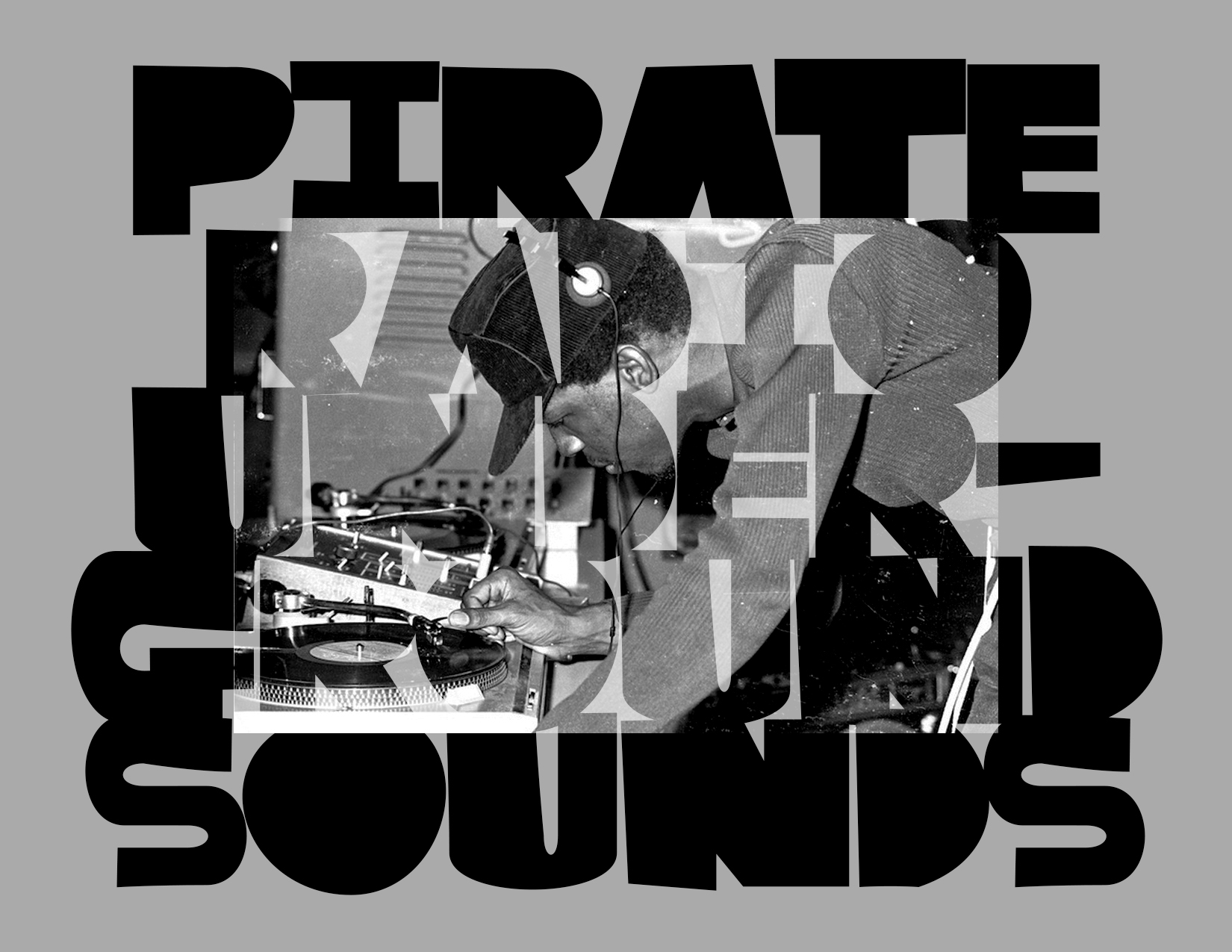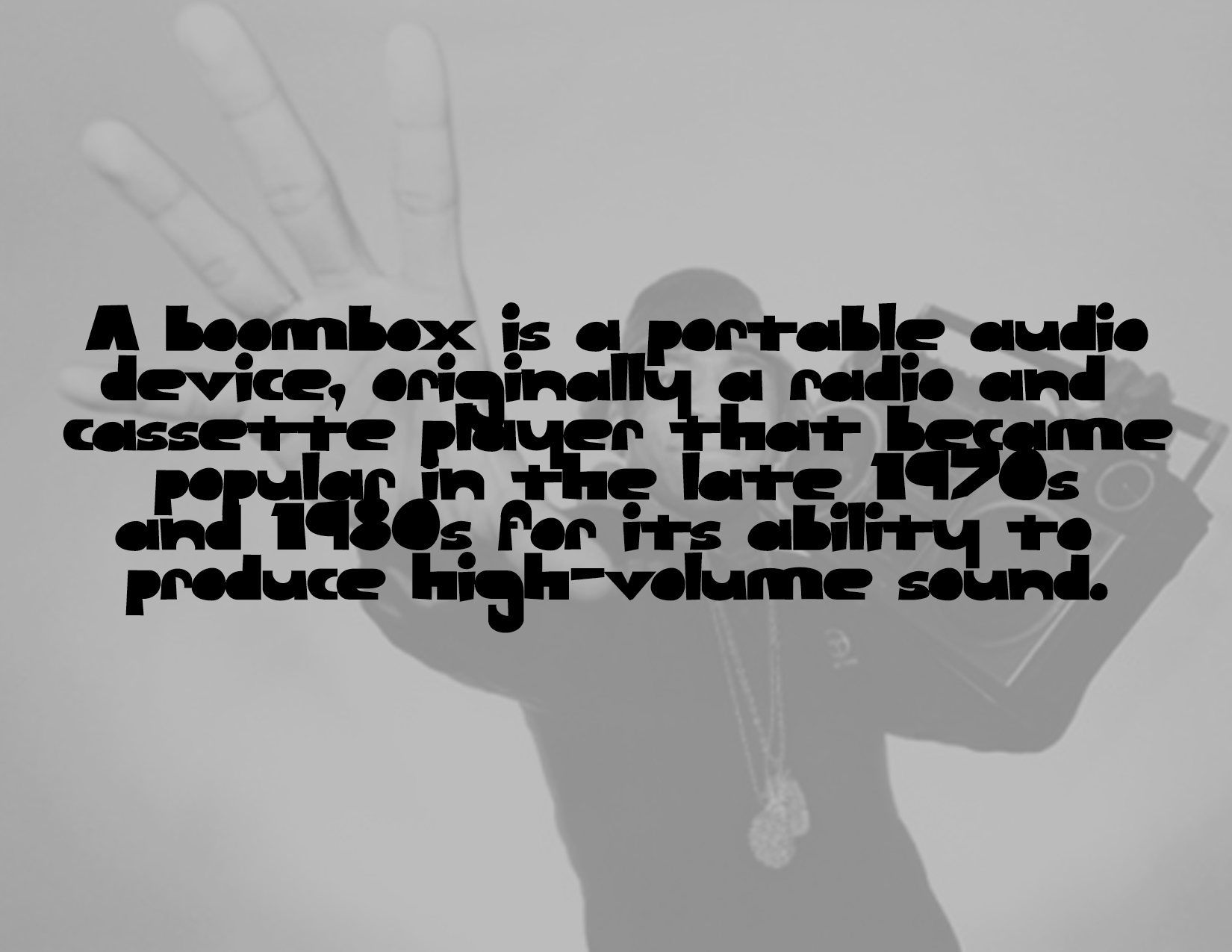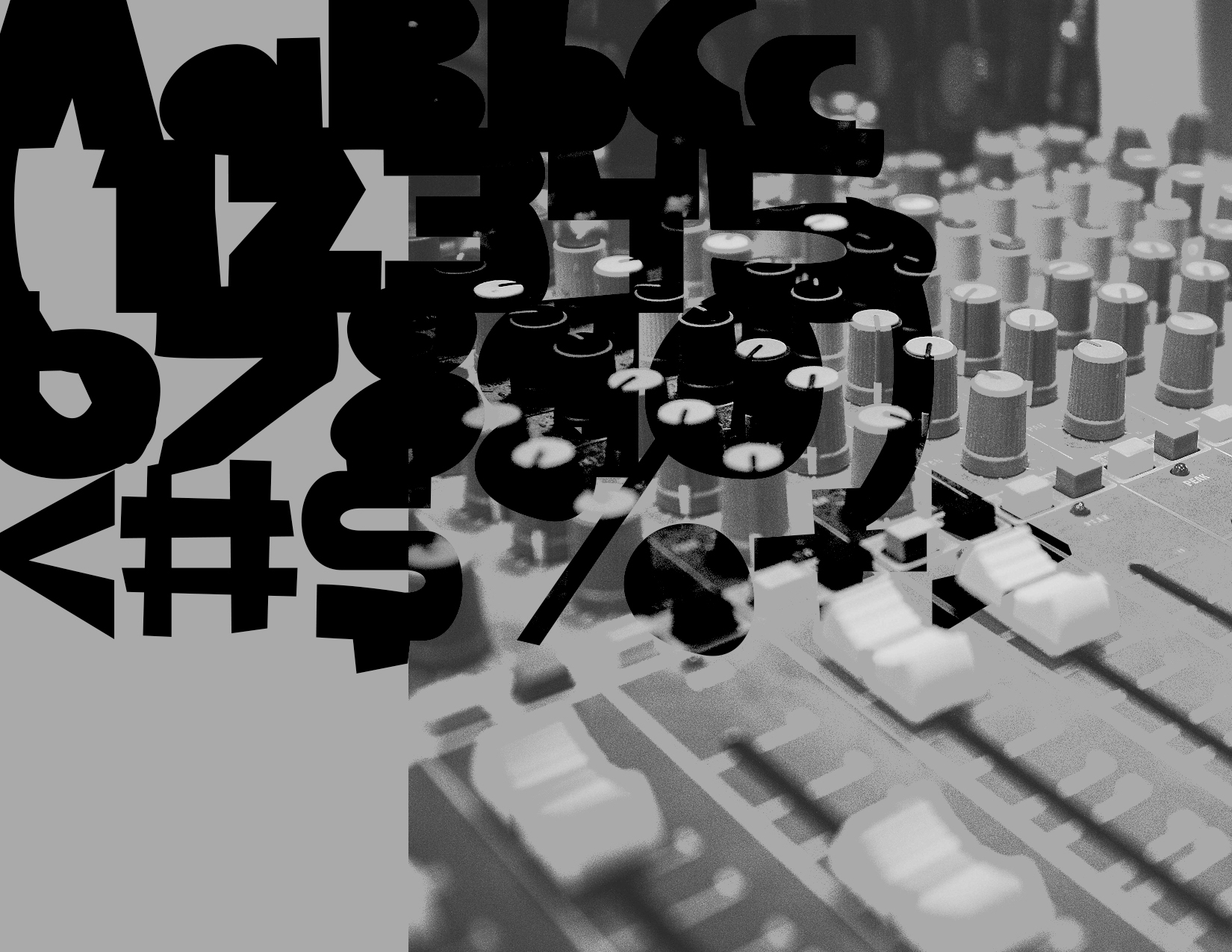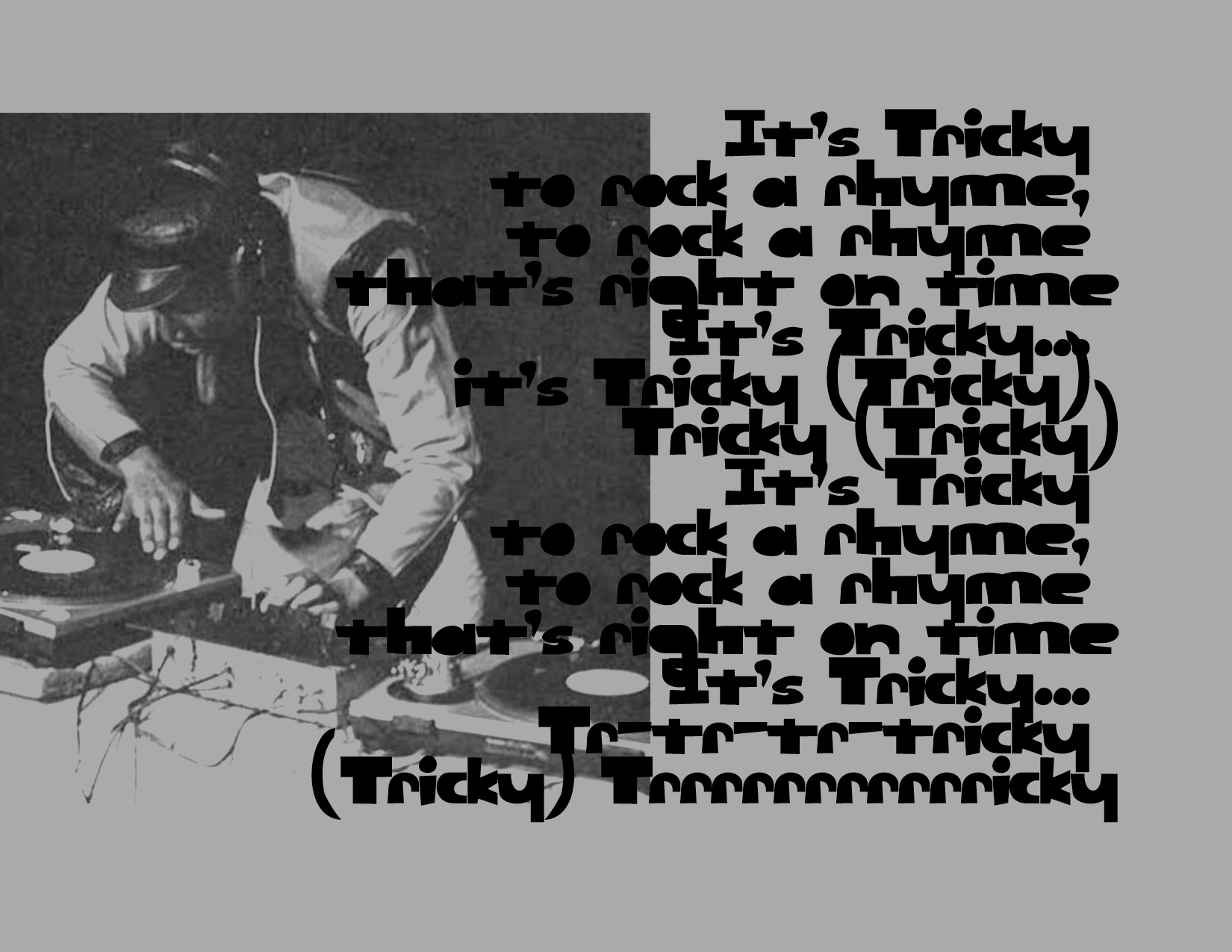
Analog
A typeface that celebrates all the imperfections, and hand done aspects of doing things "the old" way. There is beauty in the flaws, and hearing a little "static" is never a bad thing. Designer(s): Sean Fermoyle